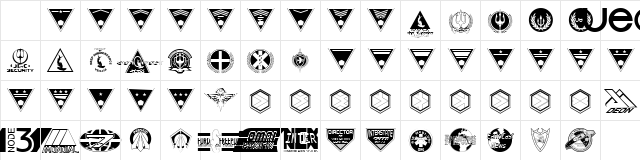
Complete Beneath the Surface Dingbats Regular glyph index. Displaying only characters natively supported by Beneath the Surface Dingbats Regular font.
Beneath the Surface Dingbats is a composed and adaptable typeface that performs quietly and consistently across a wide range of design contexts.